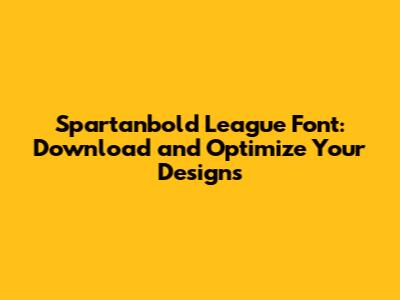
Spartanbold League Font: Download And Optimize Your Designs
Hey guys! Ever stumble upon a font that just screams "design me"? Well, let me introduce you to the Spartanbold League font. It's a real workhorse, especially if you're looking to add some serious impact to your projects. In this article, we'll dive deep into everything you need to know about the Spartanbold League font: where to find it for free download, how to use it effectively, and some killer tips to make your designs pop. We're talking everything from web design to print materials, and how to use it, so buckle up, because we're about to get font-astic!
Why Spartanbold League Font is a Designer's Best Friend
So, why all the buzz around the Spartanbold League font? Simple: versatility and visual appeal. This font boasts a clean, modern aesthetic with a touch of boldness that makes it perfect for a wide range of applications. It's the kind of font that instantly grabs attention without being overwhelming. Think of it as the perfect middle ground between a playful sans-serif and a more structured, readable typeface. Because it strikes a perfect balance, it is used for lots of different reasons. This can be perfect for those who want to use the font.
One of the main reasons designers are drawn to the Spartanbold League font is its legibility. In the fast-paced world of digital media and print, your message needs to be clear and concise, and the Spartanbold League font delivers exactly that. Its well-defined letterforms make it easy to read at various sizes, making it ideal for everything from headlines and titles to body text. This is a crucial element, especially when you're dealing with a lot of content and need to ensure readability across all devices and print formats.
Another huge advantage is its flexibility. The Spartanbold League font comes in multiple weights and styles, allowing you to create different levels of emphasis and visual hierarchy within your designs. You can go for the lighter weights for a more subtle look, or crank it up with the bold versions for maximum impact. This flexibility is a game-changer when you're designing branding materials, websites, or any other project where you want to maintain a consistent visual identity. Its versatility is part of the reason people are looking for the Spartanbold League font free download. Its available for multiple uses which can optimize your design work.
Now, for the fun part: using the Spartanbold League font to create some awesome designs. Here are some key tips to make the most of this versatile typeface:
• Hierarchy: Use different weights of the Spartanbold League font to create a clear visual hierarchy. Use bold or extra-bold weights for headings and subheadings, and lighter weights for body text to guide the reader's eye.
Spartanbold League Font: The Bottom Line
So, there you have it, folks! The Spartanbold League font is a fantastic choice for any designer looking for a versatile, readable, and visually appealing font. With its clean design, multiple weights, and easy availability (thanks to the Spartanbold League font free download options), it's a font that can adapt to almost any design project. Remember to always download fonts from reliable sources, pay close attention to the licenses, and most importantly, have fun creating! Happy designing, and go make something awesome!